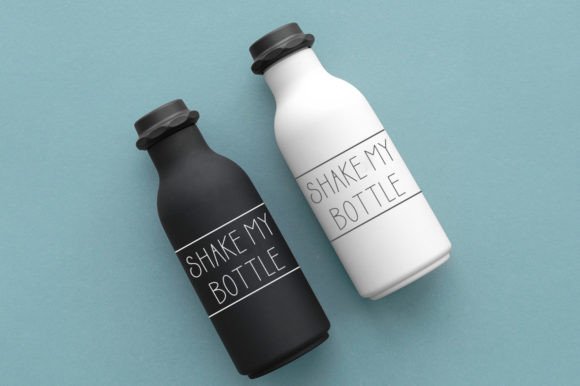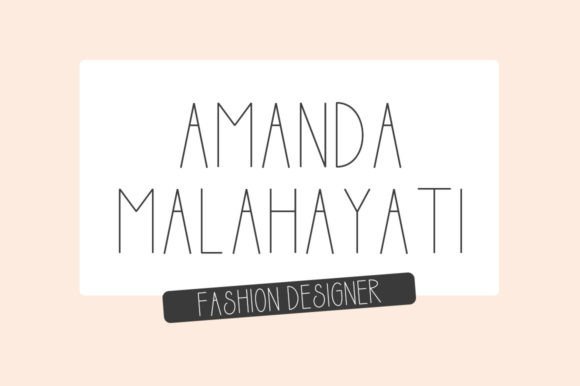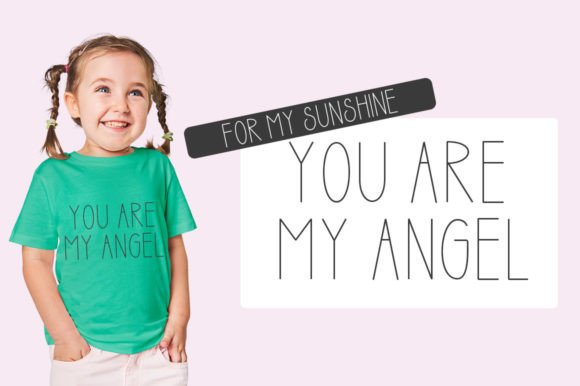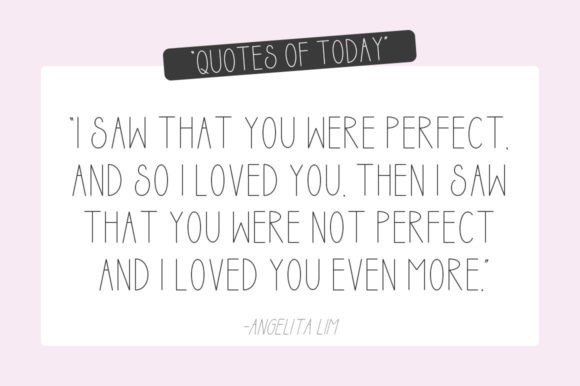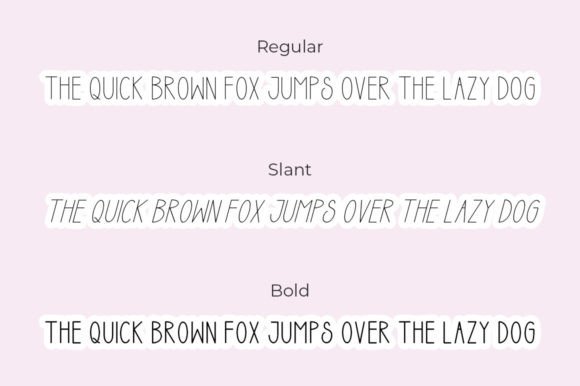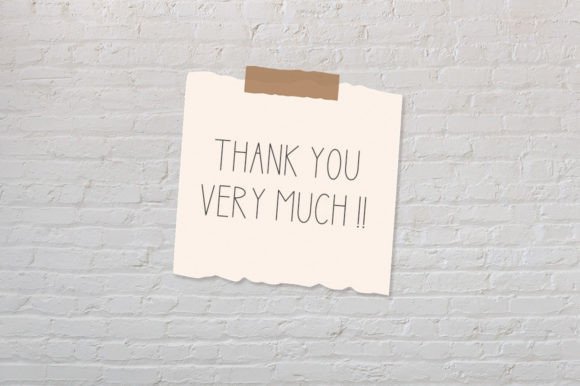
Farming in Jungle is fun and playful sketch font! This font is perfect for Cricut projects, Procreate designs, shirts, home decor, branding, logos, invitations, and more!
Farming in Jungle Font